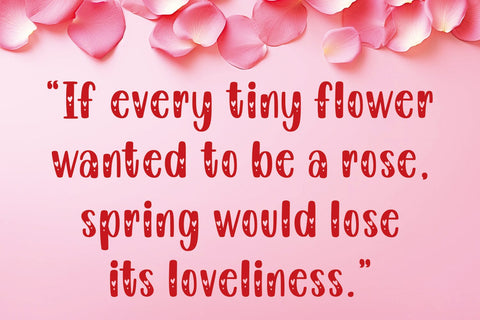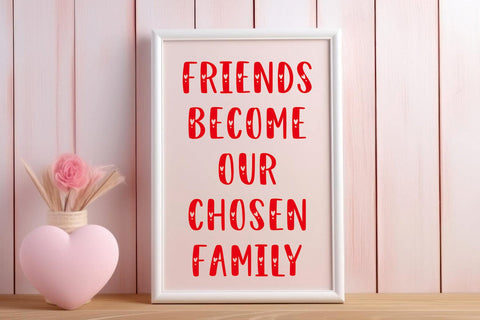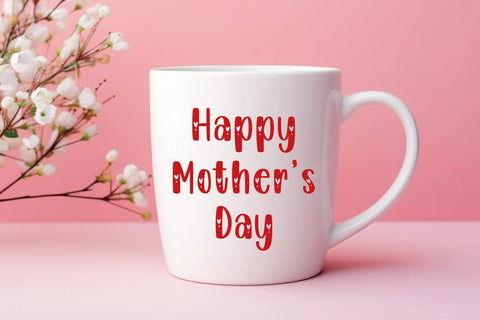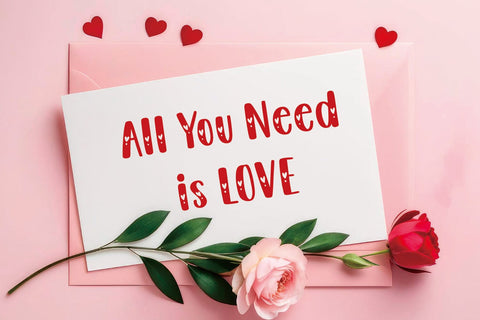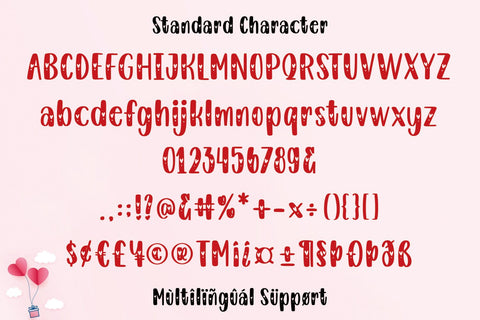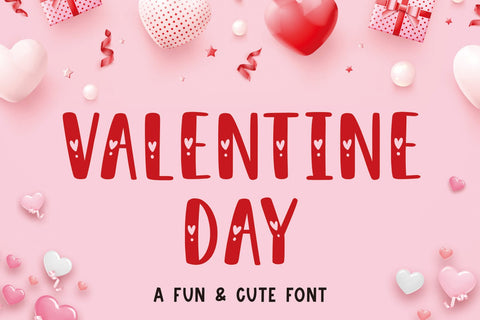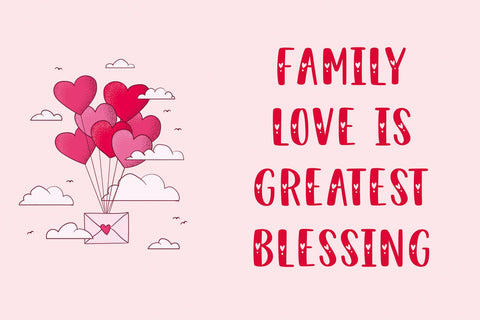
Valentine Day Font
Valentine Day Font is a romantic and charming typeface designed to bring love and elegance to all your Valentine's Day projects. With its graceful and stylish design, this font is perfect for creating heartfelt cards, invitations, and decorations that capture the spirit of love.
Crafted with love, this font adds a touch of warmth and creativity to your projects, whether you’re creating personalized greeting cards, crafting beautiful decorations, or adding a special touch to your embroidery projects. Its versatility shines in its ability to evoke emotions and convey messages of love and appreciation.
Immerse yourself in the whimsical world of this Valentine’s Day font and transform your creative endeavors into a celebration of love and connection. Elevate your designs with this charming typeface, perfect for expressing your feelings on special occasions or adding a delightful touch to everyday crafts.